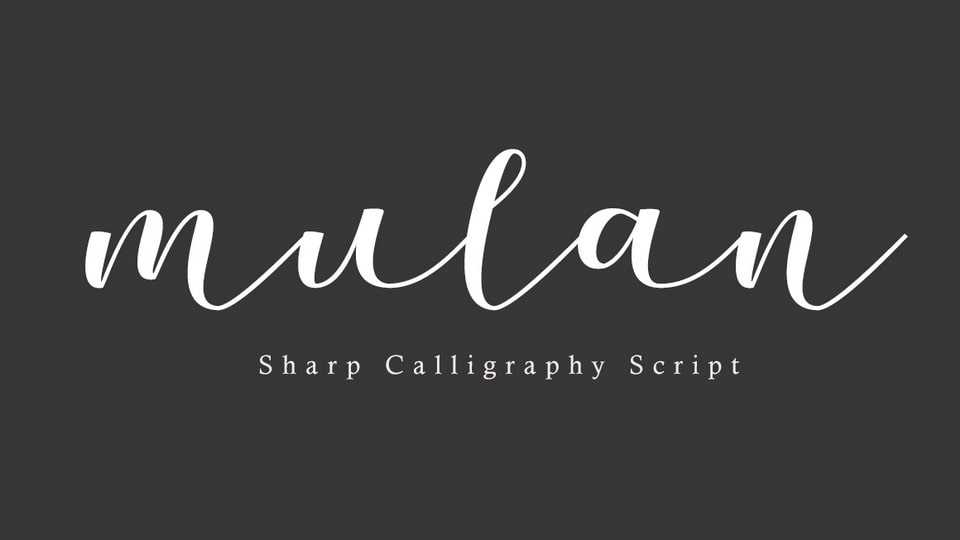
Download Mulan font, a beautiful typeface for those of you who need a touch of elegance combining classic style with modern calligraphy style for your design.